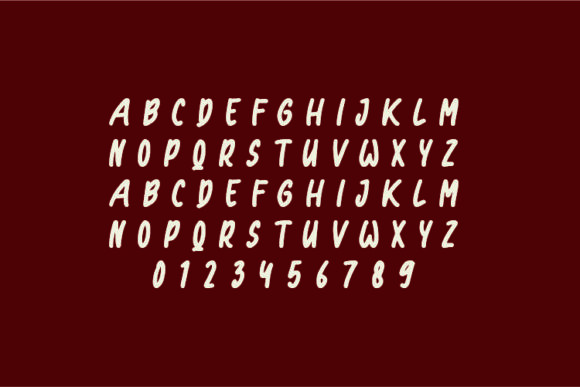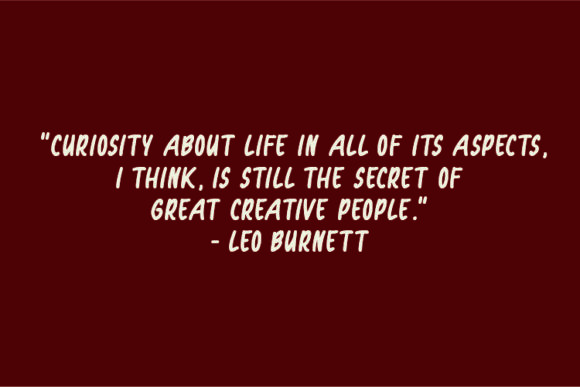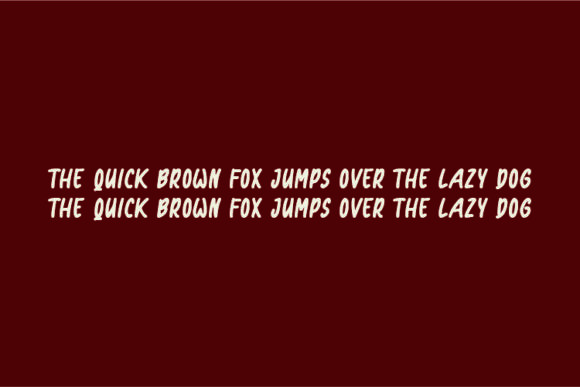
Retriever Font
About Retriever Font
Retriever is a cool and playful handwritten font. It will elevate a wide range of crafting ideas, from cards, to branding, labels and much more.